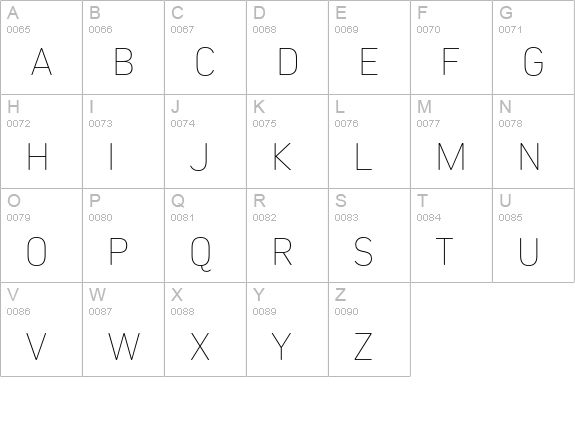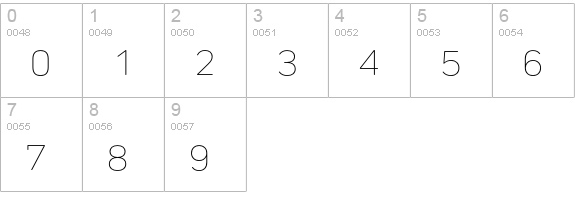
Kiro Thin Font Details
Kiro Thin is a delicate, low-contrast variant in the Kiro typeface family \xE2\x80\x94 well suited to fashion editorial, minimal branding, and high-contrast display.
Introducing Kiro Thin, a sleek and modern font that exudes sophistication and elegance. With its delicate lines and graceful curves, Kiro Thin is perfect for adding a touch of refinement to your design projects. Whether you're creating invitations, branding materials, or social media graphics, this font will elevate your work to the next level. And the best part? Kiro Thin is available for free download at FontsMarket.com. That's right, you can enhance your designs with this stunning font at no cost. Don't miss out on this opportunity to elevate your creations with Kiro Thin – download it today and let your creativity soar.